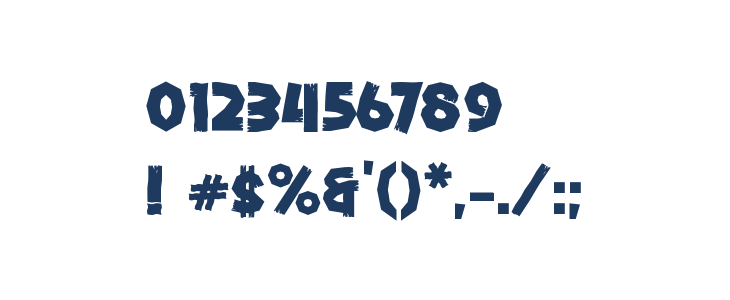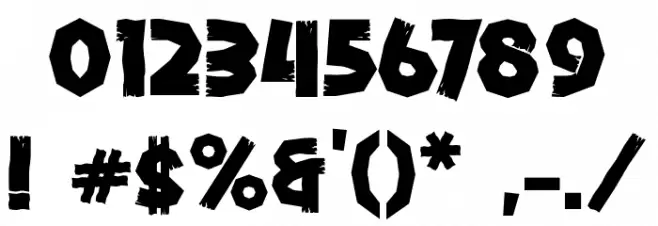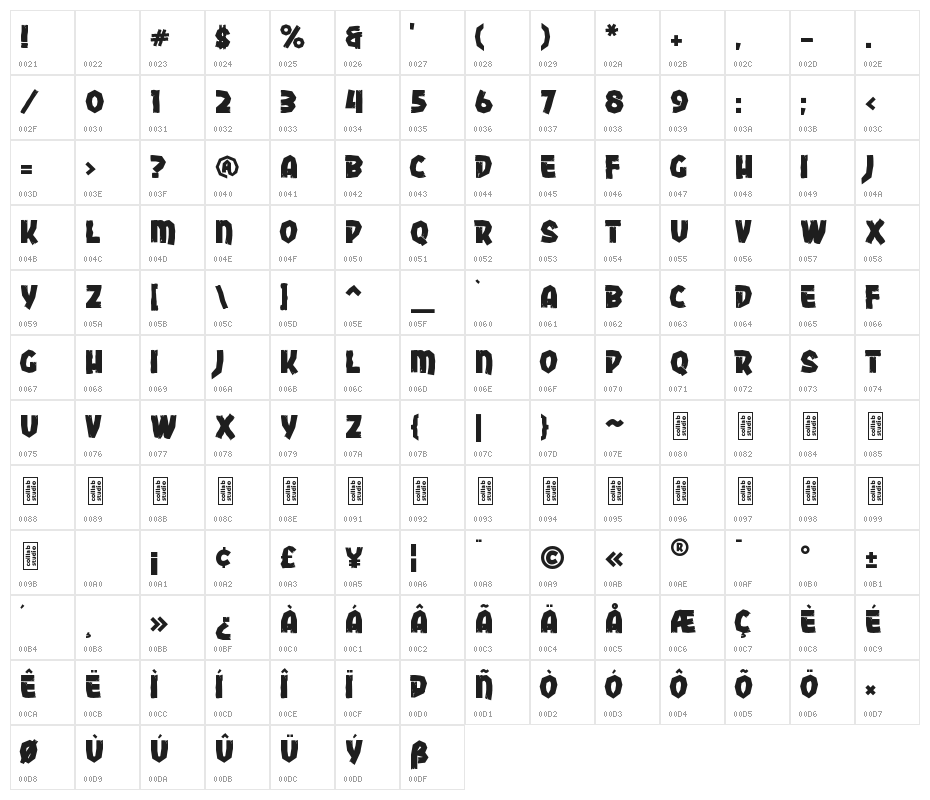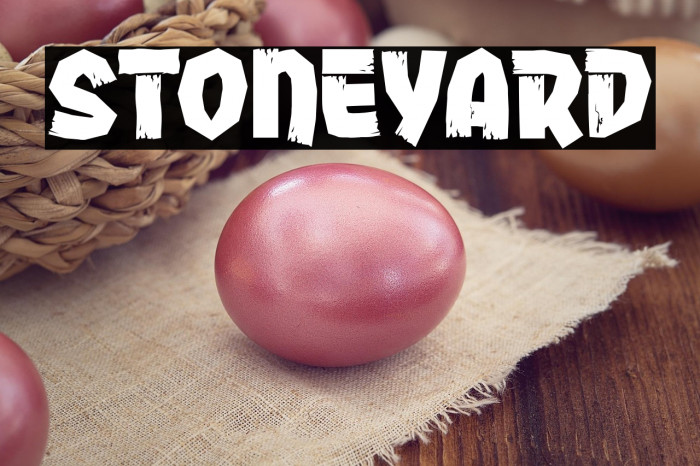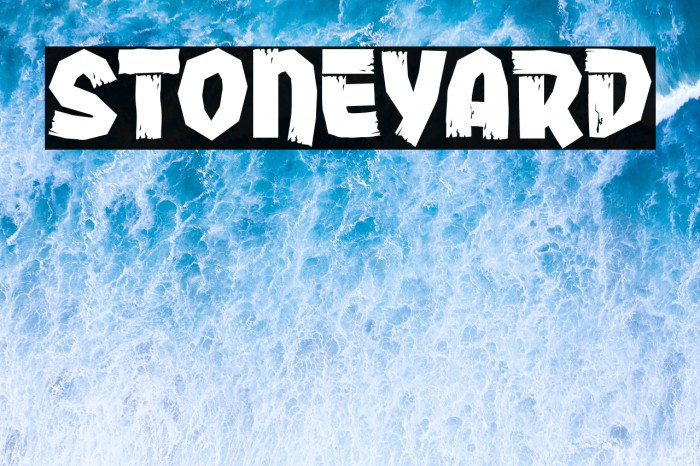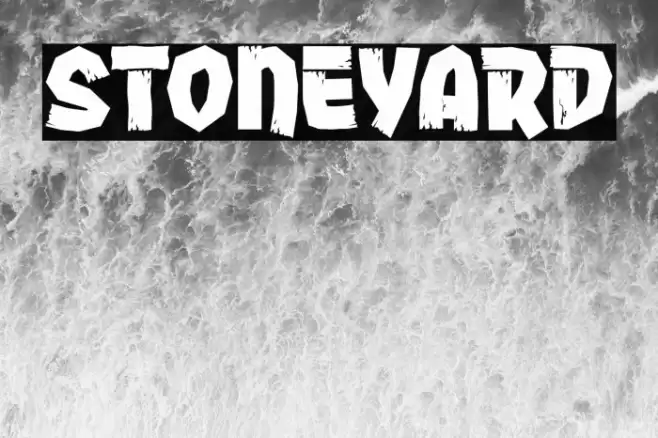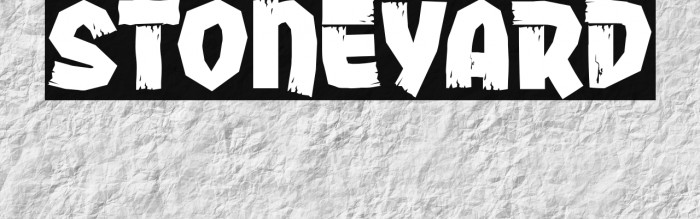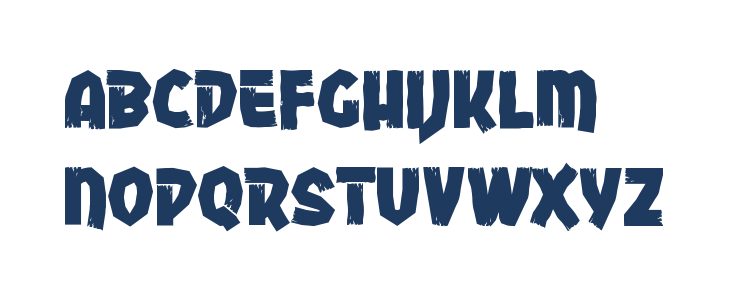
Stoneyard Font
Stoneyard Description
This font features a rugged, distressed appearance, reminiscent of rough stone or weathered surfaces. The characters are bold and impactful, with irregular edges and a textured look that suggests a hand-carved or eroded style. The uppercase and lowercase letters maintain a consistent height, contributing to a cohesive and uniform appearance. Numbers and special characters follow the same design principles, ensuring a harmonious overall look. This font is ideal for projects that require a strong, eye-catching aesthetic with a touch of raw, natural charm.
| Proposed Projects | Perfect for branding, posters, album covers, and any design needing a bold, rustic touch. |